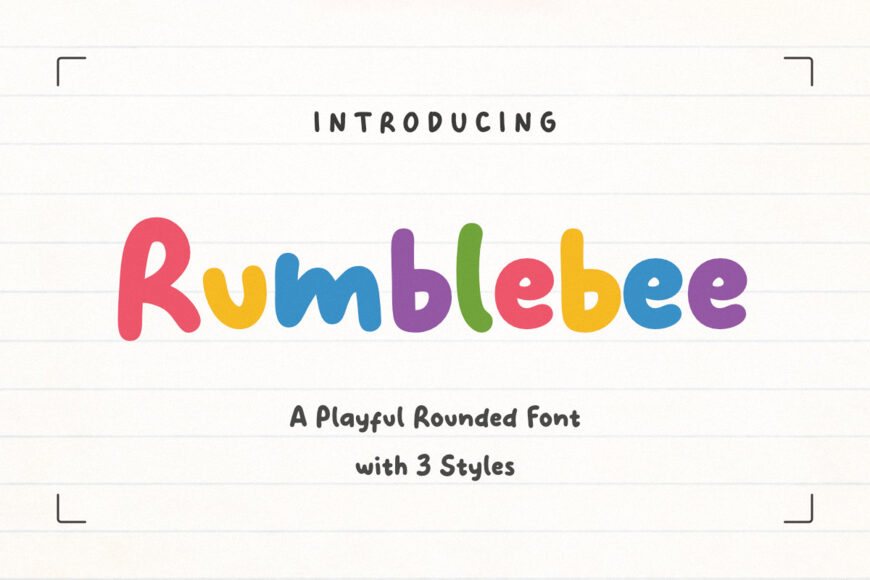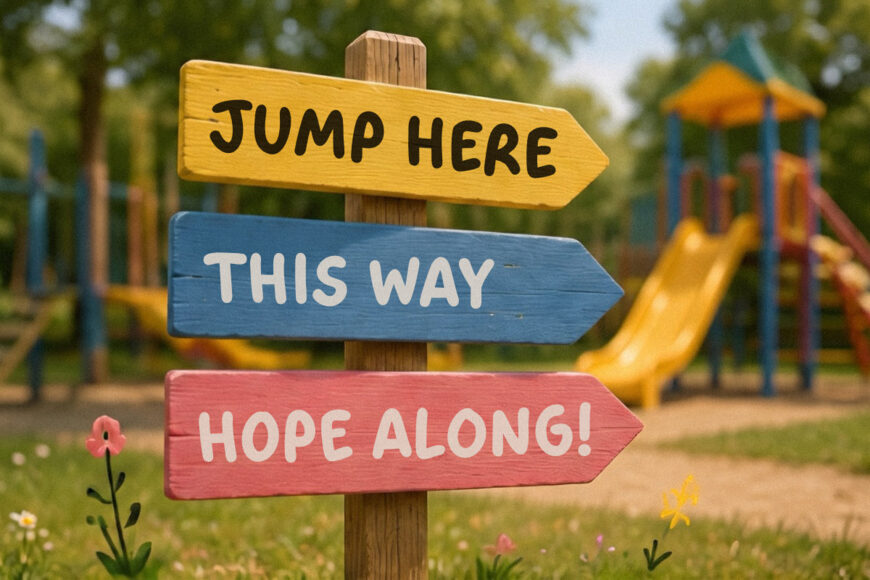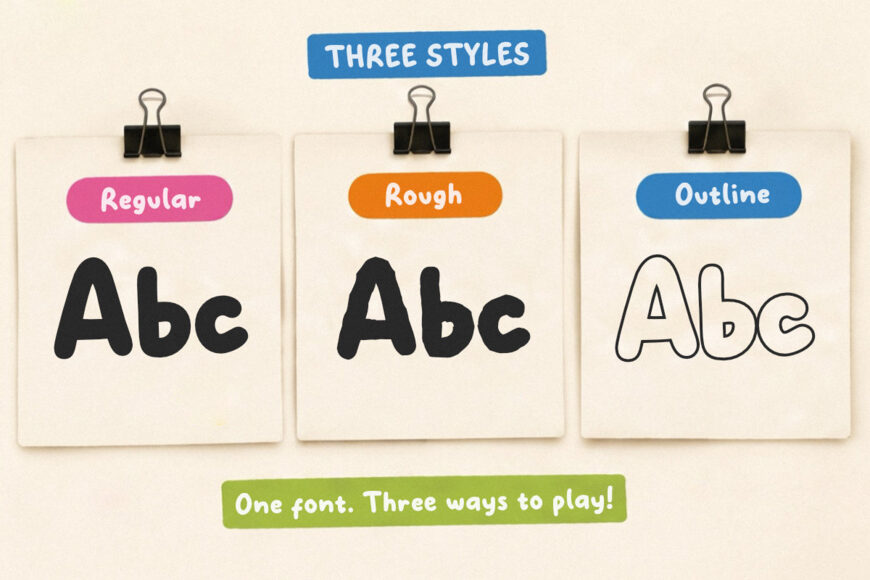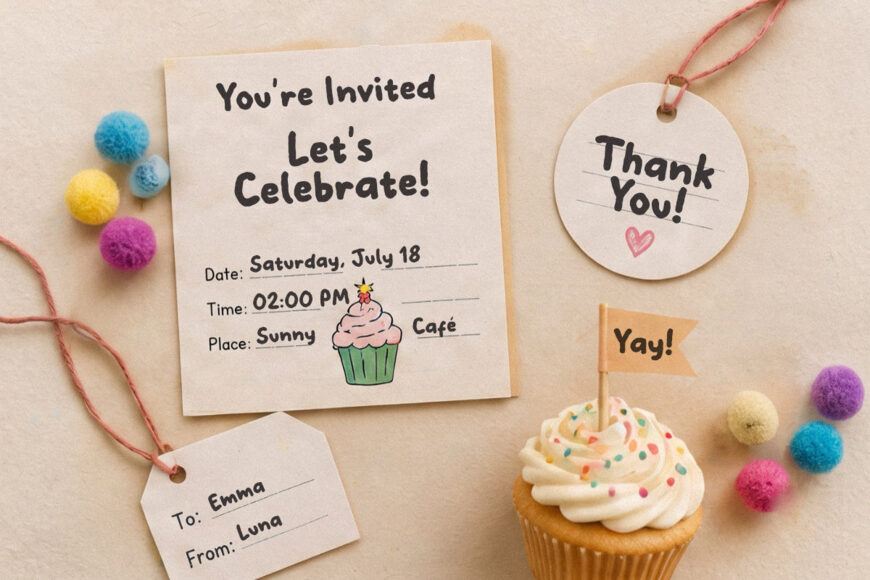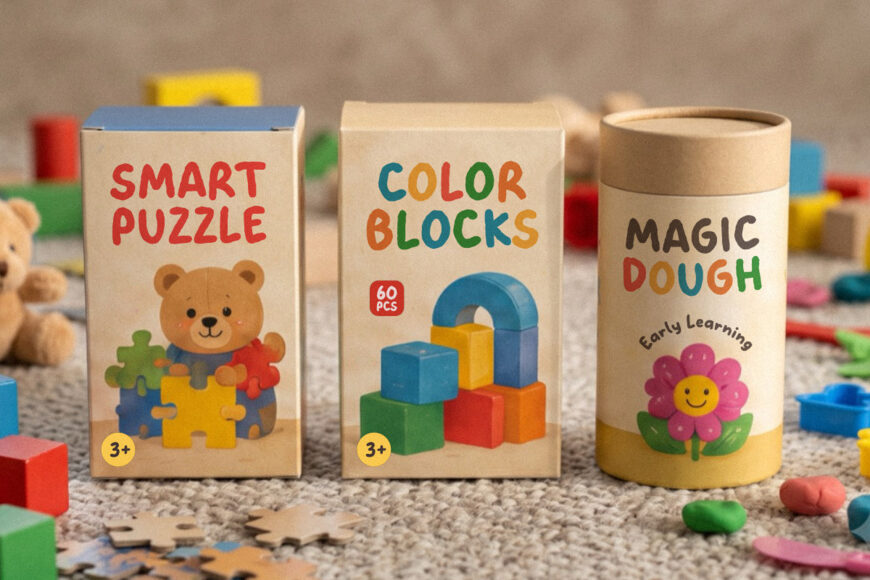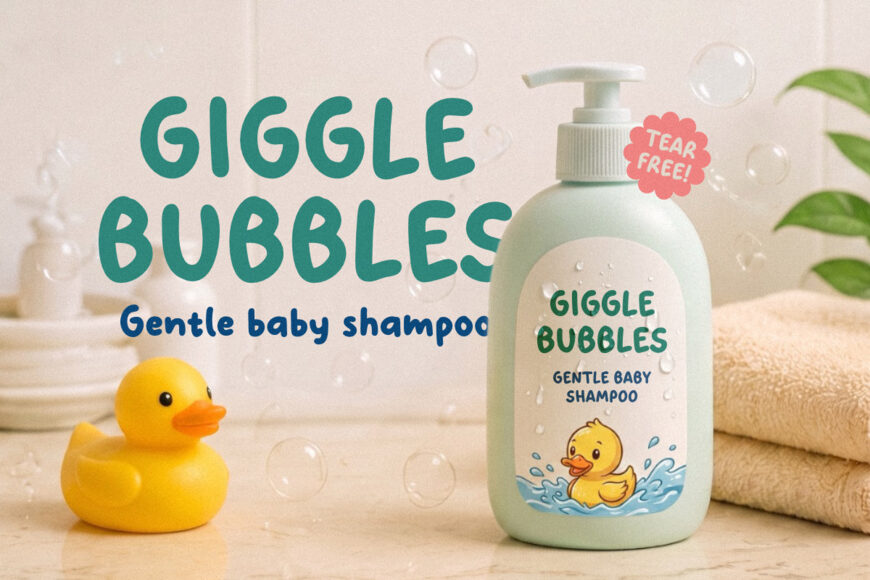
Rumblebee is a playful rounded font designed with soft, generously rounded terminals, balanced proportions, and an open rhythm that creates an inviting, child-friendly appearance without sacrificing readability. Its slightly irregular hand-drawn construction gives every word a warm, natural flow, making headlines feel lively and approachable rather than mechanically geometric.
Available in Regular, Rough, and Outline styles, Rumblebee provides creative flexibility for clean branding, textured handcrafted looks, or fun layered typography. Created for joyful visual storytelling, Rumblebee brings warmth to children’s books, educational materials, toy packaging, baby products, snack branding, stickers, birthday invitations, classroom resources, social media graphics, and cheerful merchandise.